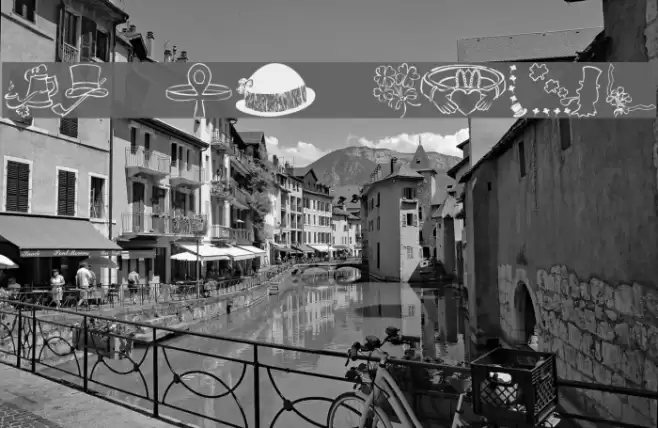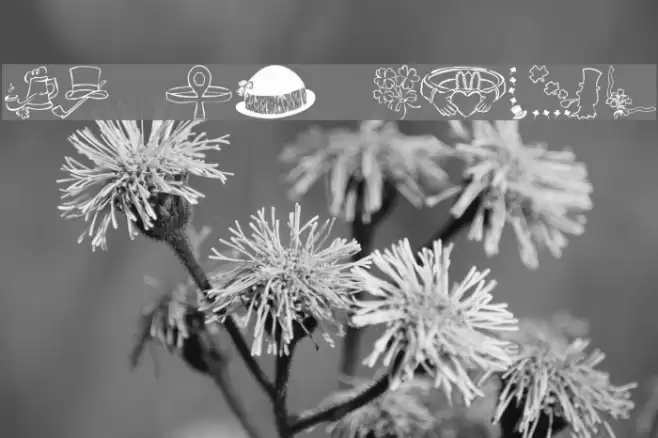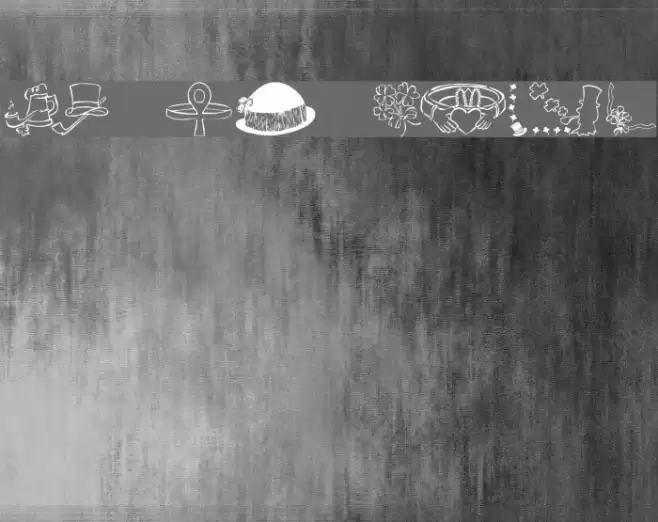
KR Bits O'Shea Font
KR Bits O'Shea Description
This decorative font is a playful and thematic collection of symbols and illustrations, each character representing a unique element related to luck and celebration. The design includes motifs such as shamrocks, top hats, pots of gold, and other festive icons. The style is whimsical and illustrative, making it ideal for projects that require a touch of charm and festivity. The characters are intricately detailed, with each symbol conveying a sense of joy and celebration. This font is perfect for creating themed graphics, party invitations, or any project that seeks to capture a festive spirit.
- Proposed Projects: Ideal for themed graphics, party invitations, holiday cards, and festive decorations.
- Use Case: Logos, Headlines, Decorative elements